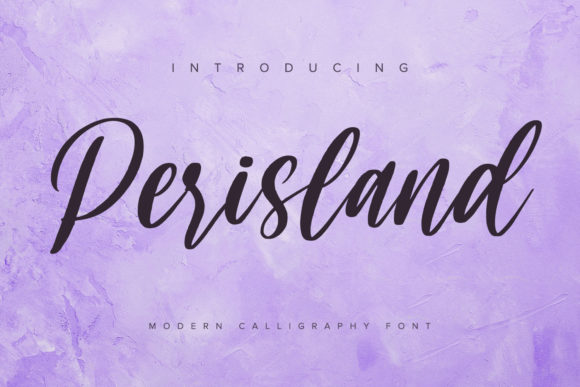
Introducing Perisland Font: The Masterpiece of Digital Artistry
In the realm of typography, where letters dance and words come alive, Perisland Font emerges as a radiant star, illuminating your creative projects with its captivating charm. This exquisite script font, meticulously crafted by the skilled artisans at Ditatype, is a testament to the enduring allure of classic typography, effortlessly blending tradition with a touch of modern flair.
Perisland's intricate strokes and graceful curves evoke a sense of timeless elegance, reminiscent of handwritten masterpieces from a bygone era. Each letter is a work of art, carefully designed to convey emotion and depth, adding a touch of personality to every word you write. Whether you're composing captivating headlines that demand attention or crafting blocks of text that captivate and engage, Perisland will elevate your designs to new heights.
Beyond its aesthetic appeal, Perisland is a remarkably versatile font that seamlessly adapts to a myriad of creative endeavors. Its inherent beauty shines through in both digital and print formats, making it the perfect choice for websites, brochures, flyers, posters, and any other medium where words matter. Perisland's versatility extends to moving images as well, adding a touch of cinematic magic to videos, animations, and presentations.
With Perisland at your fingertips, you'll discover a world of creative possibilities. It's the perfect font for creating logos that leave a lasting impression, branding materials that exude sophistication, and social media posts that capture the attention of your audience. The possibilities are endless, limited only by your imagination.